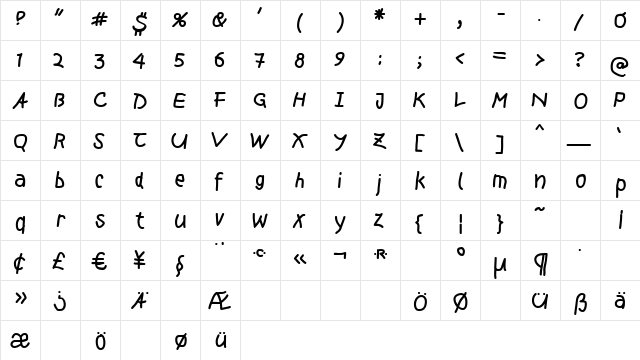
MousePen Regular
Design Context for MousePen Typeface
MousePen takes a measured approach to typography — its balanced proportions and neutral character make it a reliable workhorse for both digital and print work.